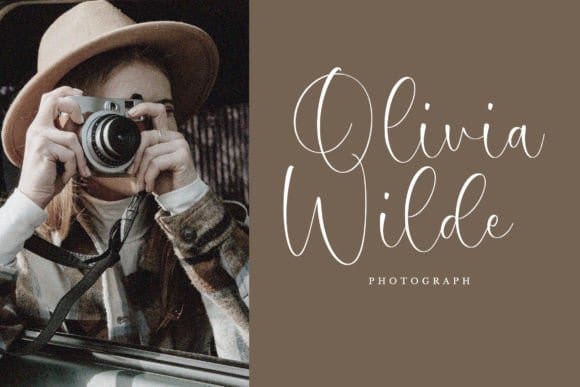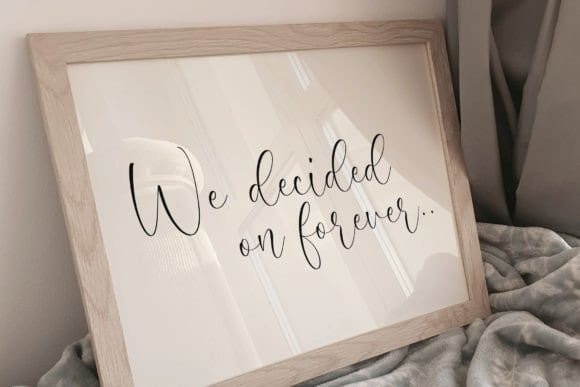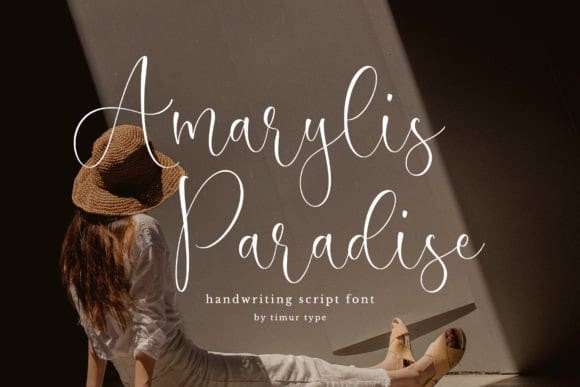
Amarylis Paradise Font
Amarylis Paradise Font is a stylish handwritten script font. AmarylisParadise is perfect for product packaging, branding project, magazine, social media, weddings, or just used to express words above the background.